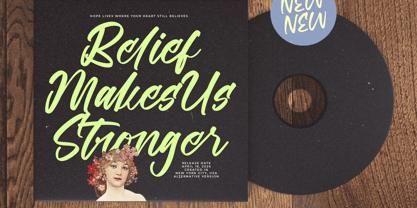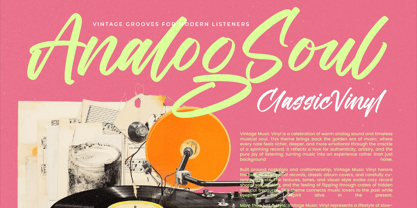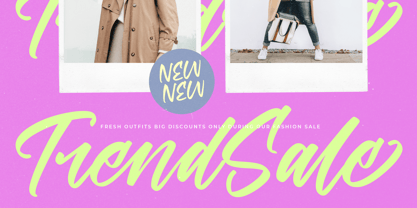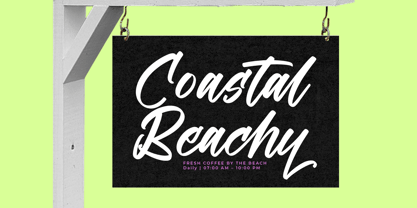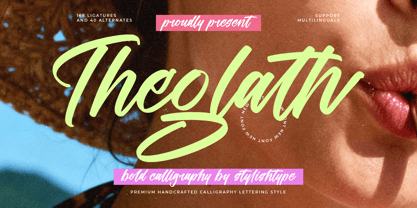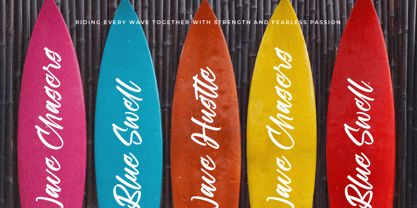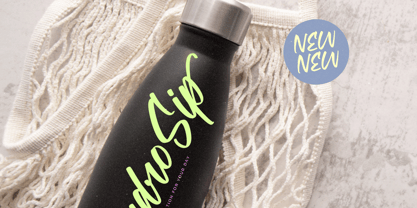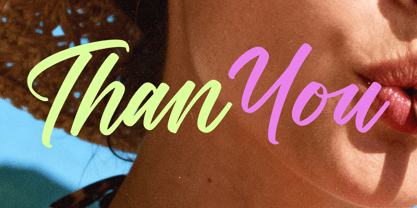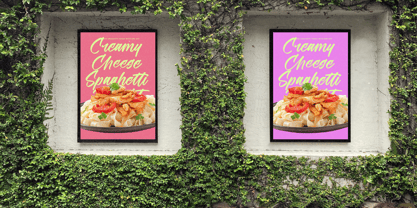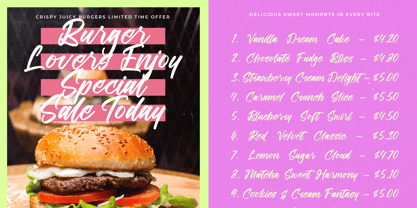
Theglath
Die Schriftfamilie Theglath wurde von Heru Utama Putra entworfen und von Stylishtype Studio veröffentlicht. Theglath enthält 2 Stile und Familienpaketoptionen. Mehr über diese Familie
Theoglath is a bold handcrafted calligraphy font with a smooth, sun-soaked summer vibe. Its flowing strokes, expressive curves, and natural handwritten rhythm make it perfect for branding, beach-themed graphics, fashion promos, social media quotes, wedding invitations, product packaging, and lifestyle projects. Featuring 168 ligatures and 40 alternates, this font gives you full creative freedom to craft elegant, stylish, and eye-catching typography with a premium handwritten feel.